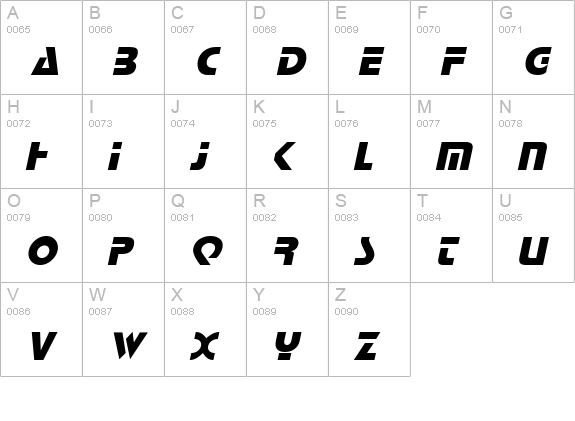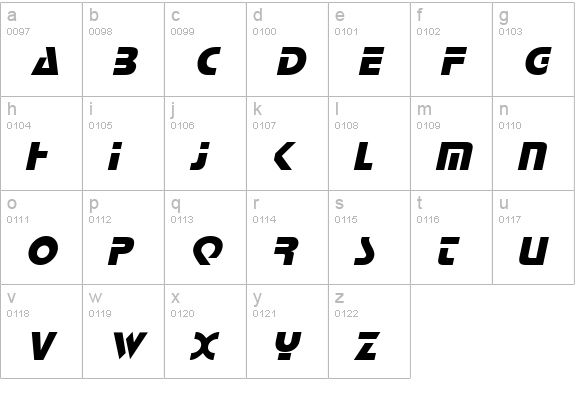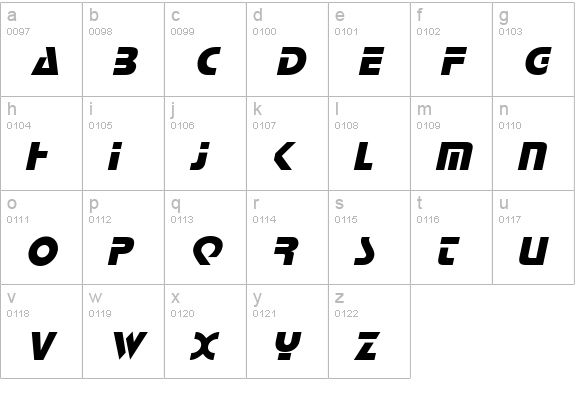
Logan Italic is a distinctive, italic variant in the Logan typeface family \xE2\x80\x94 well suited to design and typography projects.
Logan Italic font embodies elegance and sophistication with its sleek and modern design. The italicized style adds a touch of flair to any design project, making it perfect for branding, headlines, and editorial purposes. The smooth curves and sharp angles of Logan Italic create a harmonious balance that is both timeless and contemporary. Best of all, Logan Italic is completely free to download at FontsMarket.com. This means you can easily access this stylish font to elevate your creative projects without any cost. Whether you're a professional designer or a hobbyist looking to add a touch of class to your work, Logan Italic is the ideal choice. Download it today and let your creativity shine with this exquisite typeface.